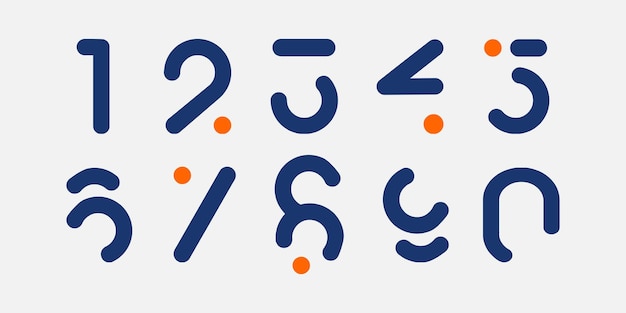
number set vector font alphabet modern dynamic flat design with brilliant colorful for your unique
Number set vector font alphabet modern dynamic flat design with brilliant colorful for your unique
number set vector font alphabet modern dynamic flat design with brilliant colorful for your unique